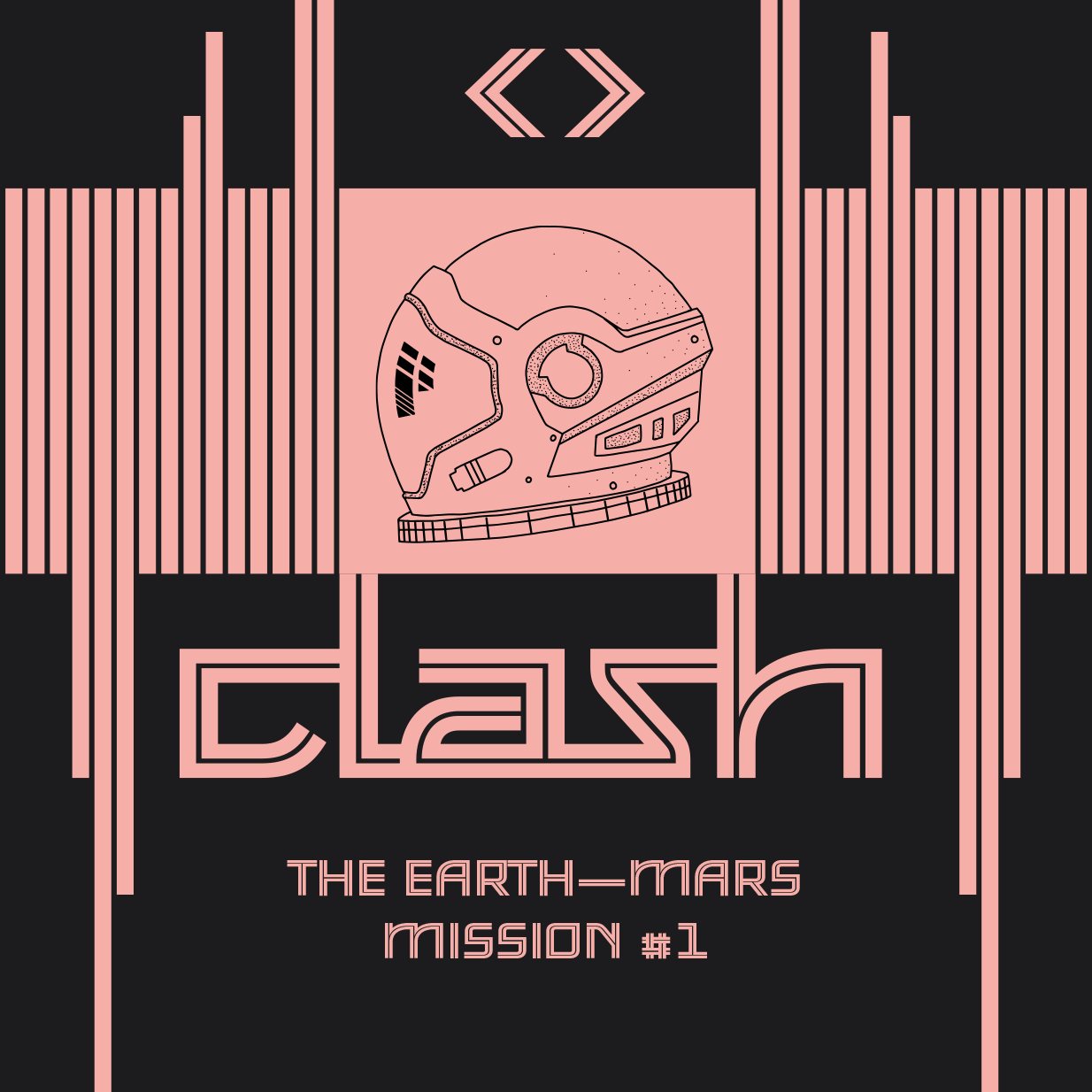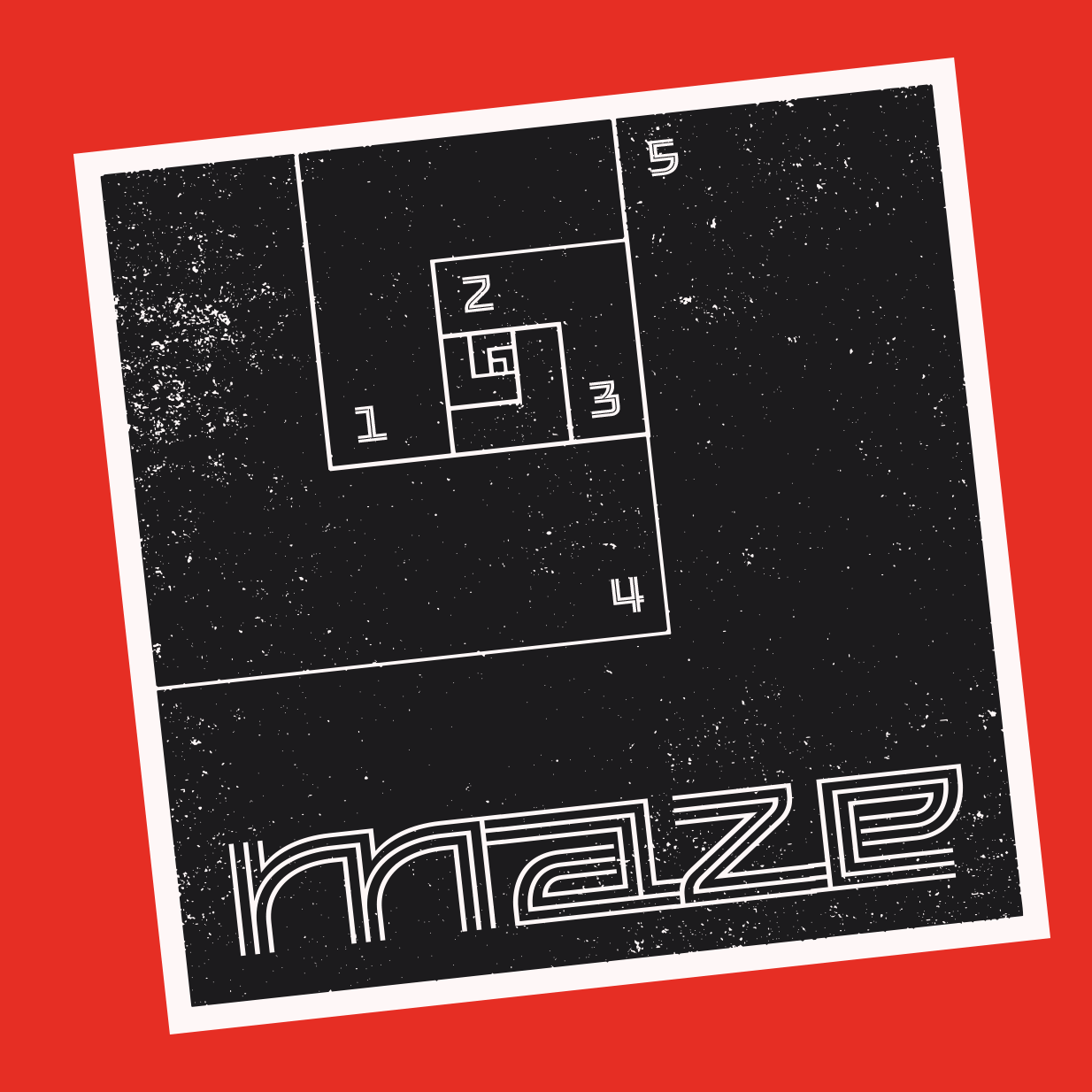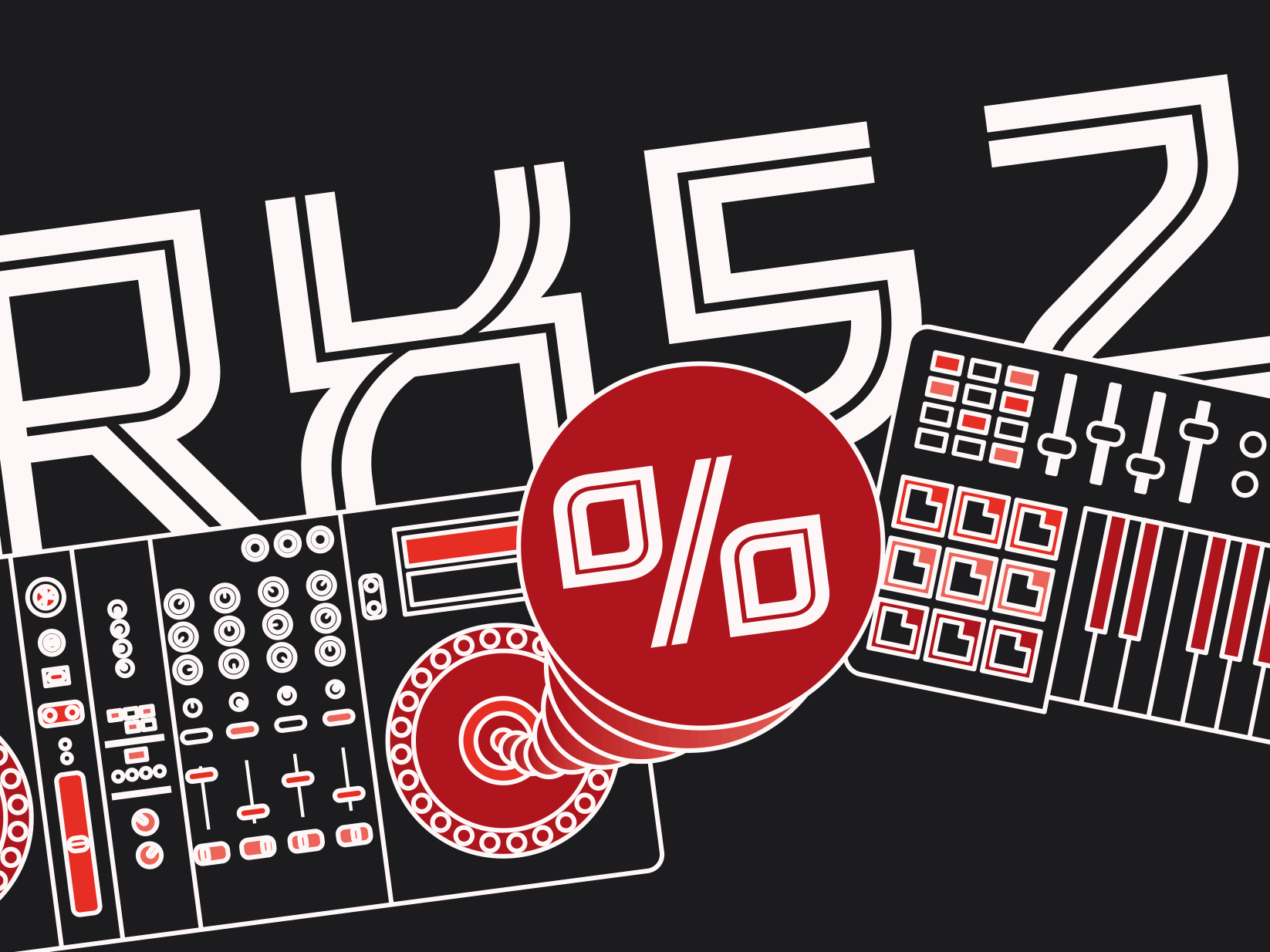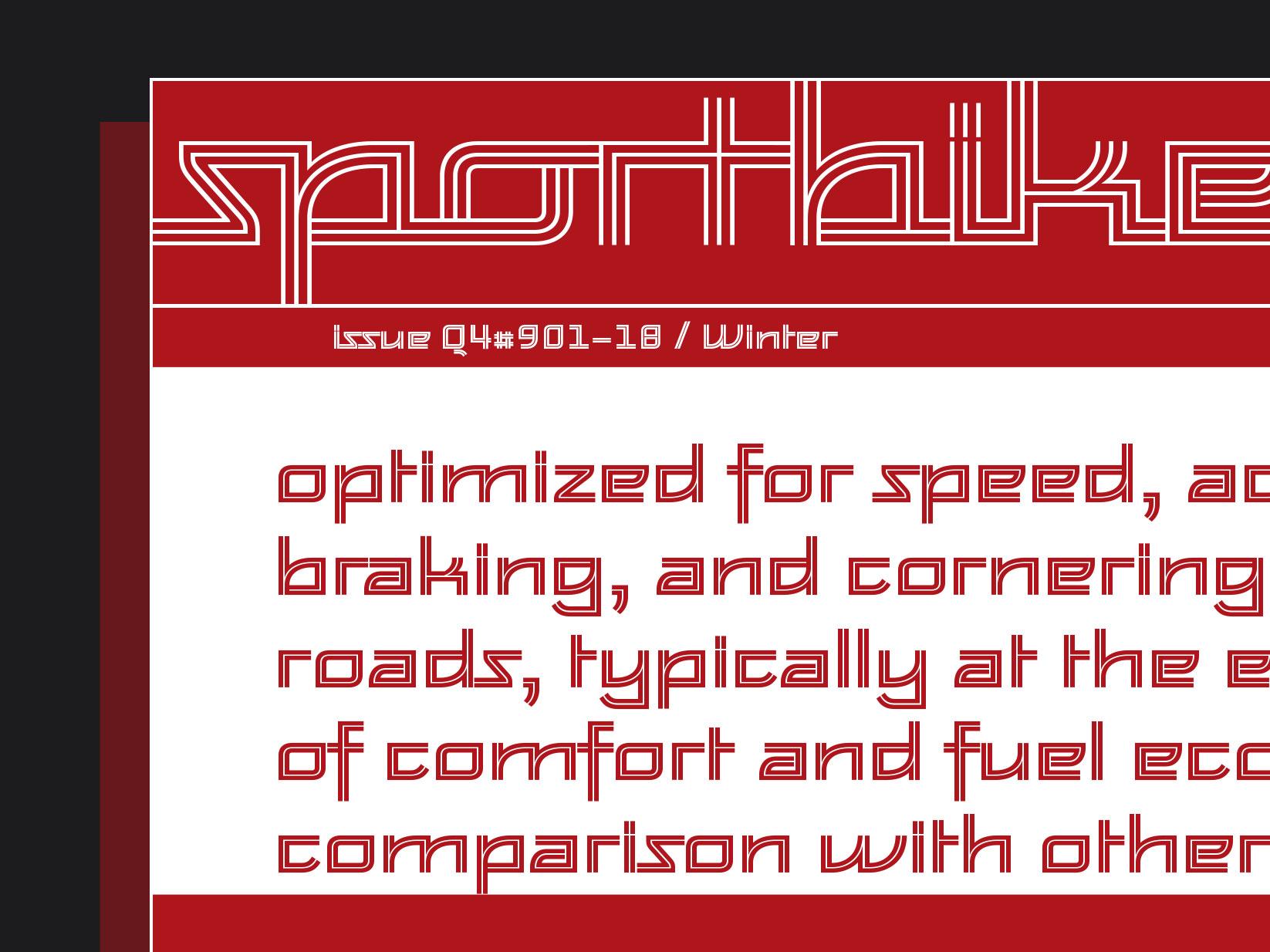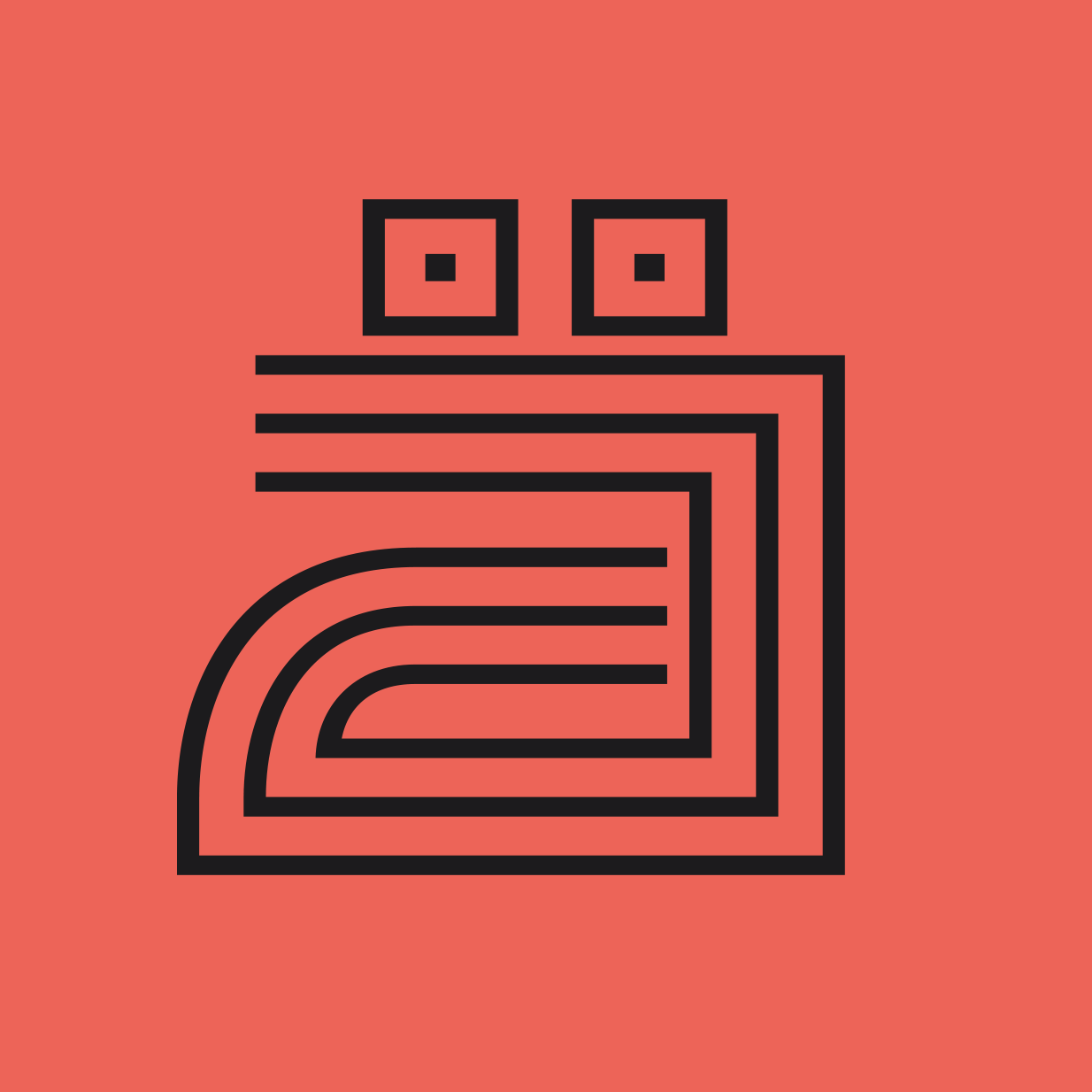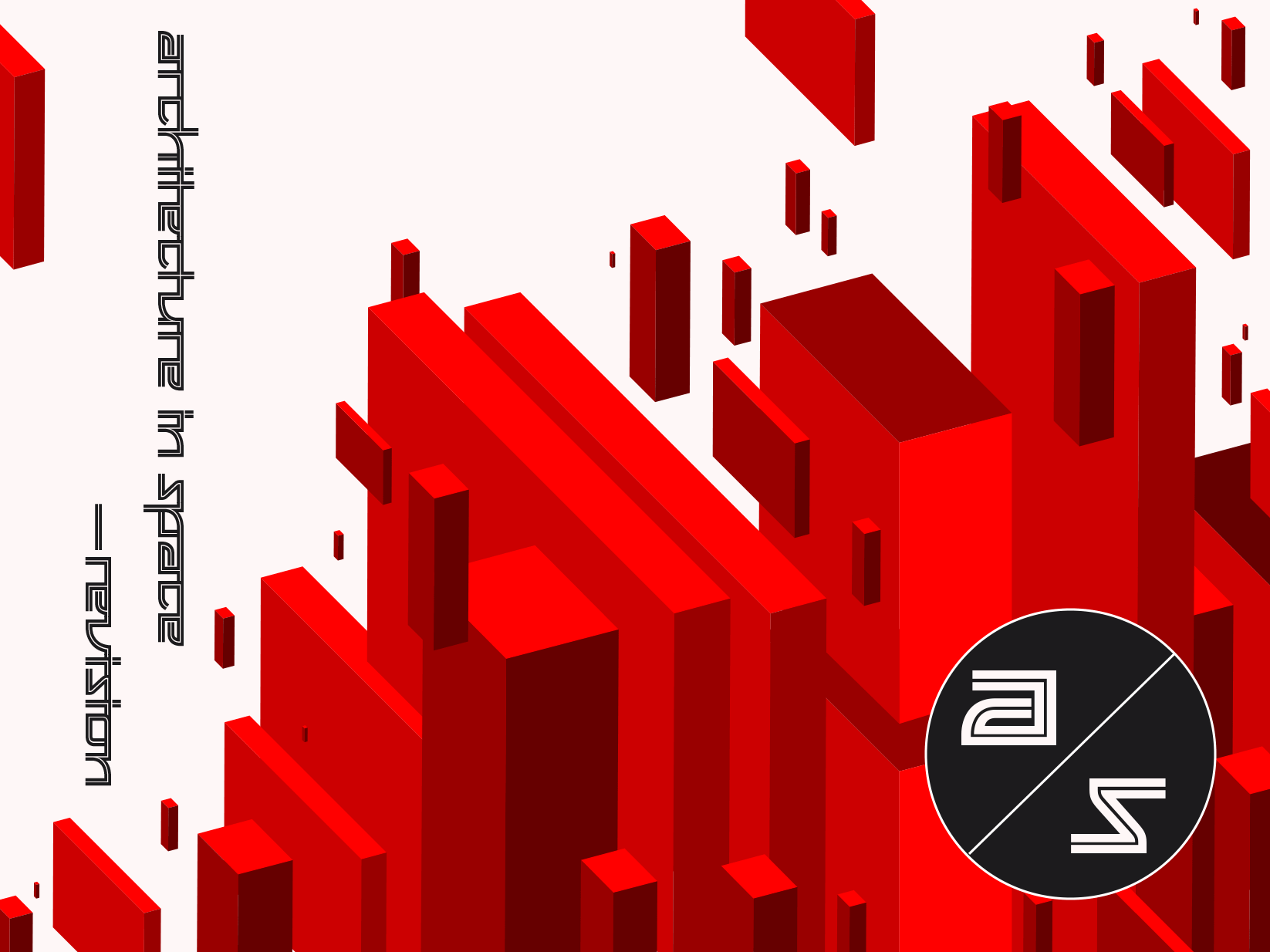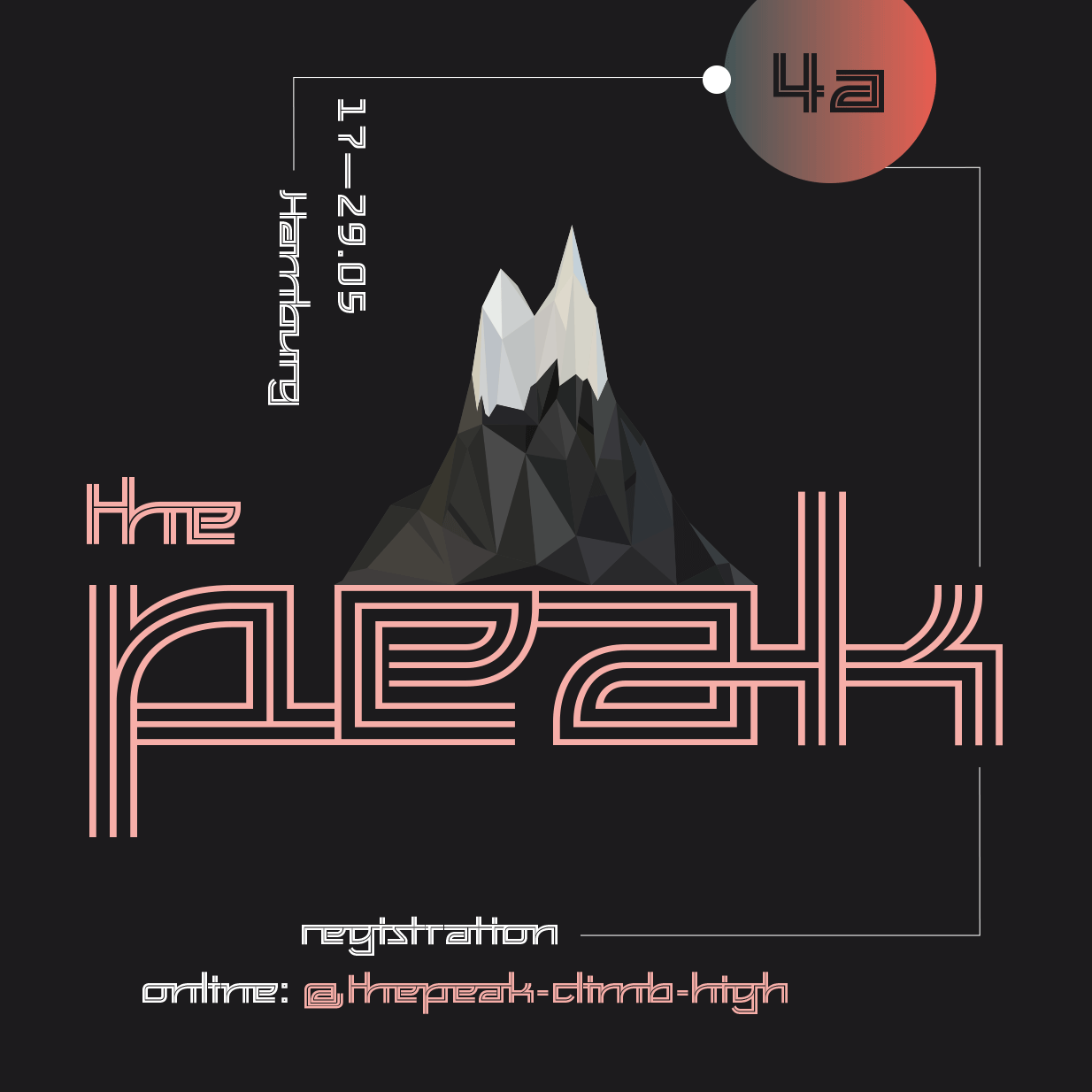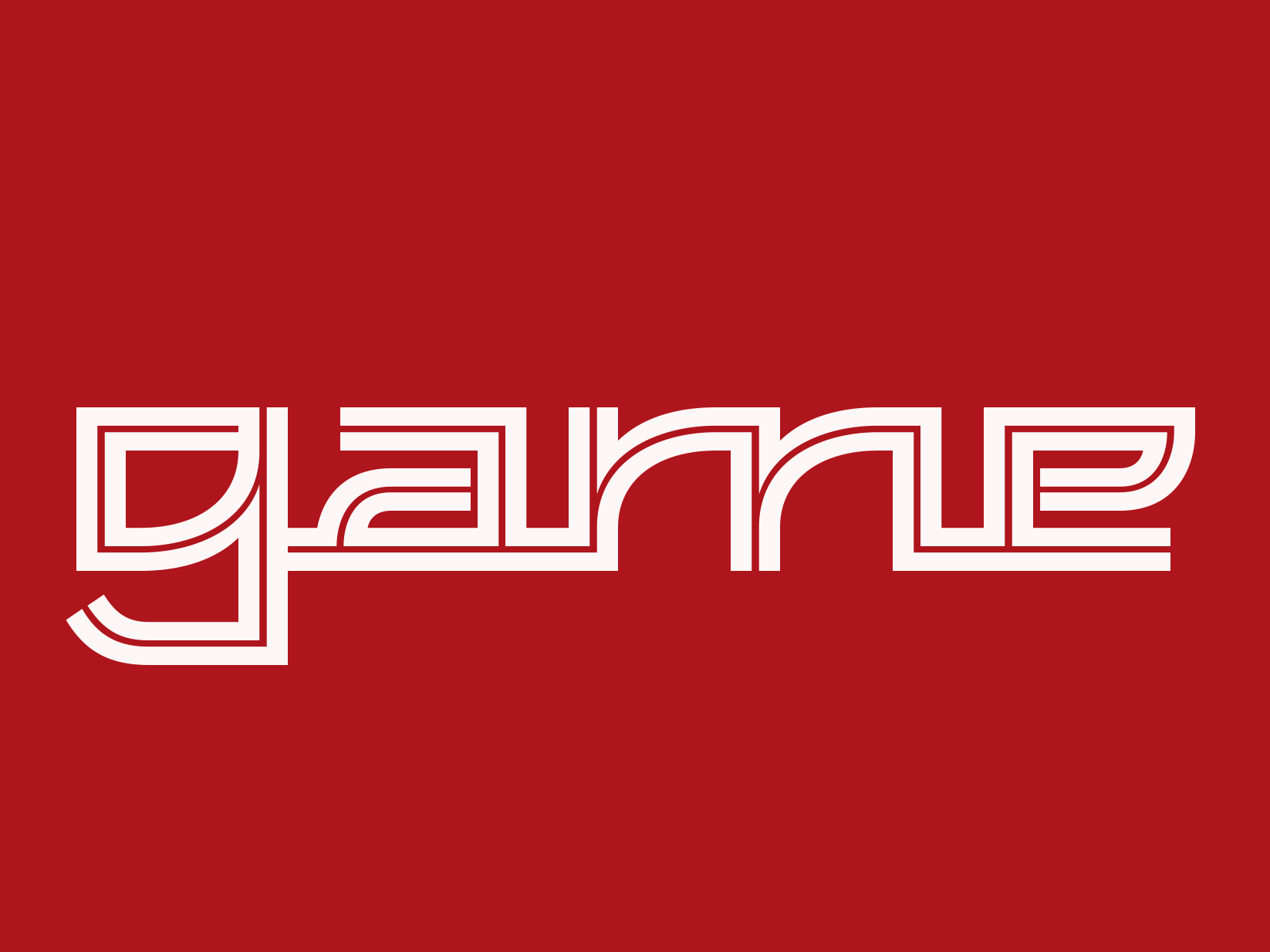
Feisar Express
Feisar Express is a ‘retro-futuristic’ inline script for expressive display typography with a technical touch. Related to the Feisar family, the series started as an exploration of what can be done with current font technology. Feisar Express is available in two different connecting inline styles — One and Two — each with three different variants for top, bottom and alternating connections called Uptown, Downtown and Crosstown.
Designer
Paul van der Laan
2006
Feisar Express Uptown One